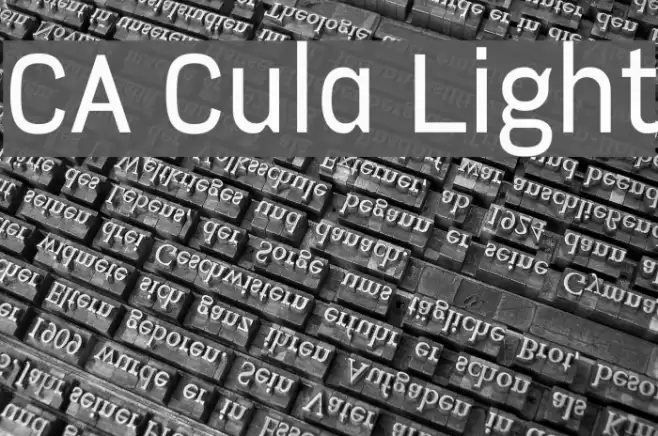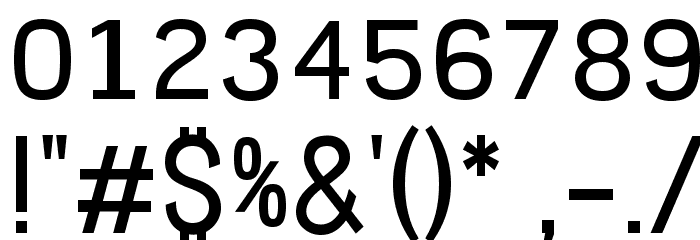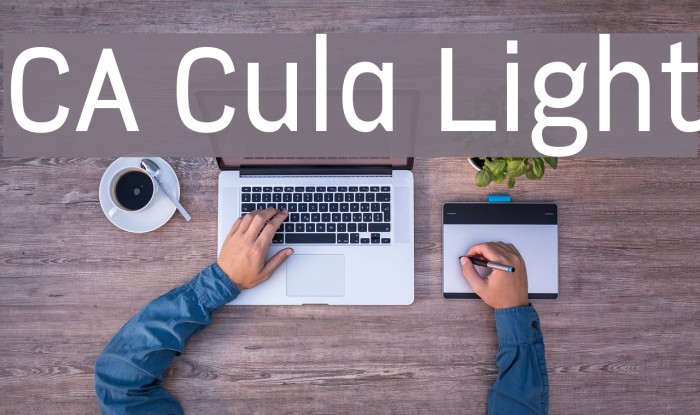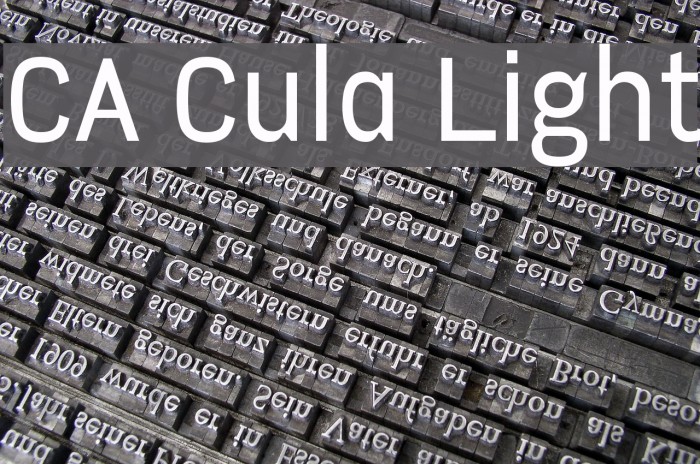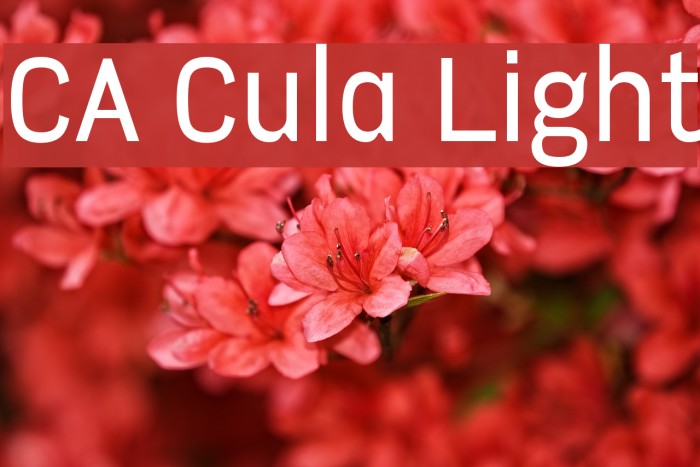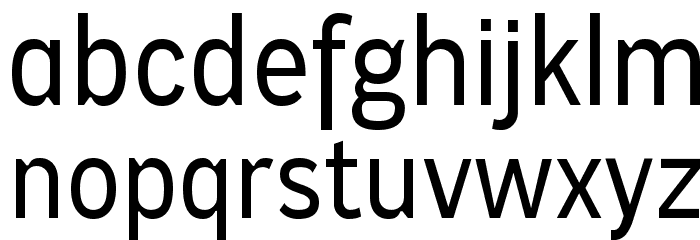
CA Cula Light Font
CA Cula Light Description
This font features a clean and modern sans-serif design with a light weight, making it ideal for a variety of applications. The characters are evenly spaced with a normal width, providing excellent readability. The uppercase and lowercase letters maintain a consistent style, with smooth curves and straight lines that give it a contemporary feel. The numerals are clear and distinct, ensuring they stand out in any context. Special characters are well-defined, adding to the font's versatility. The overall appearance is sleek and professional, suitable for both digital and print media.
A modern, light sans-serif font with clean lines and excellent readability from Sans Serif fonts.